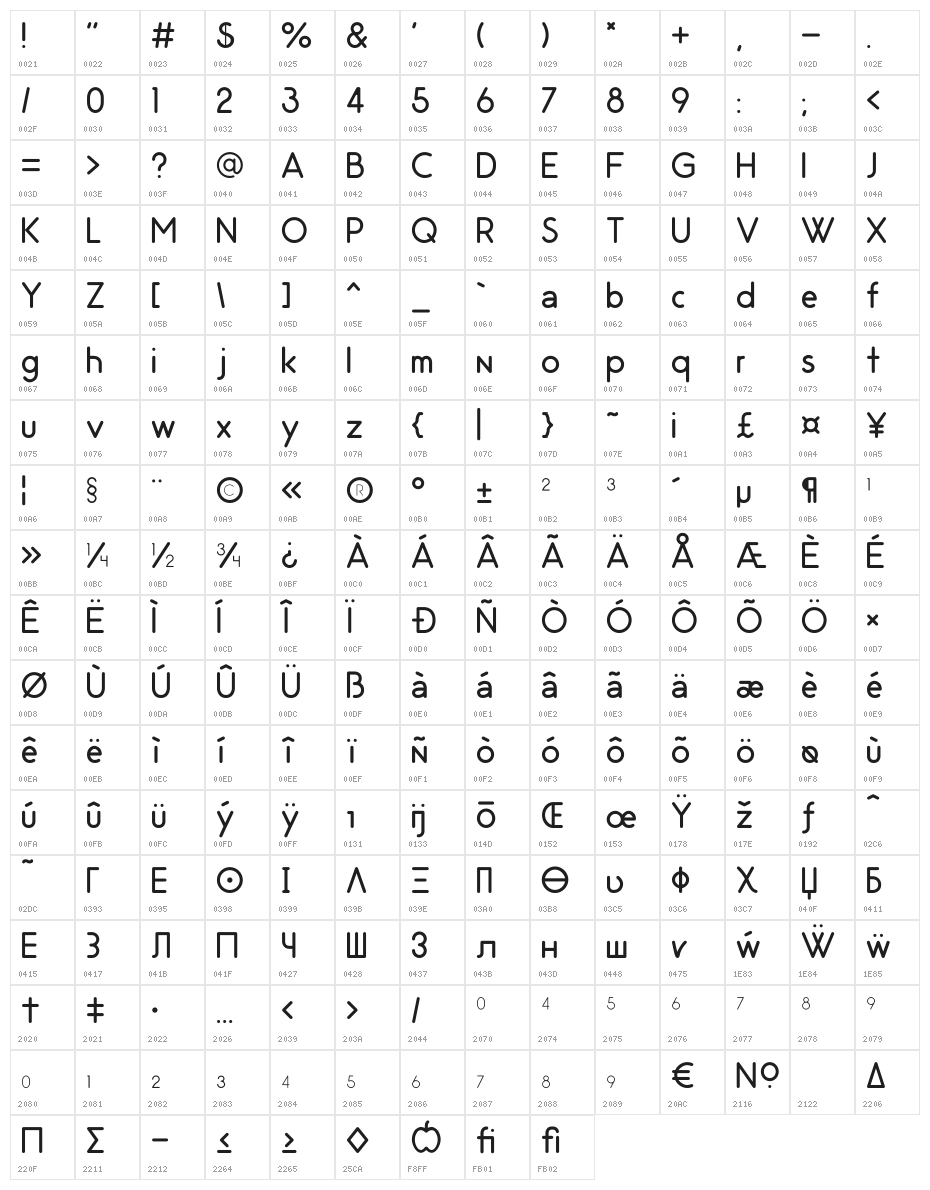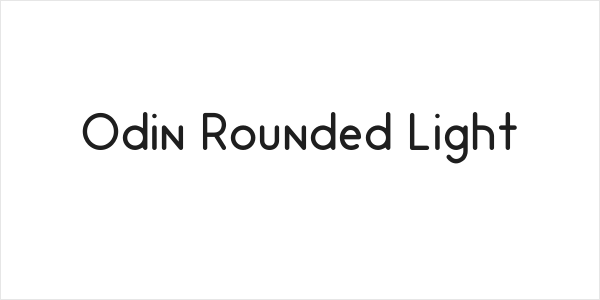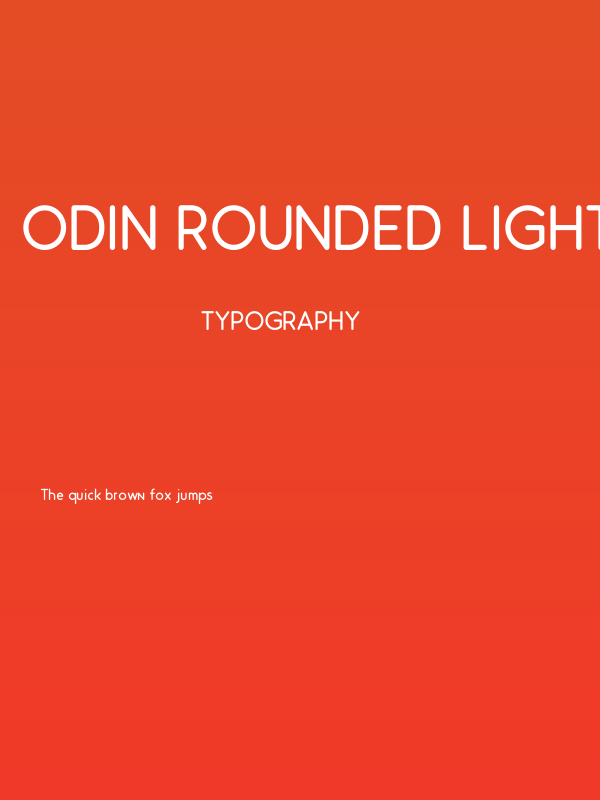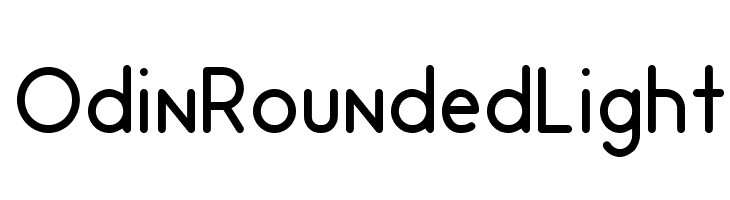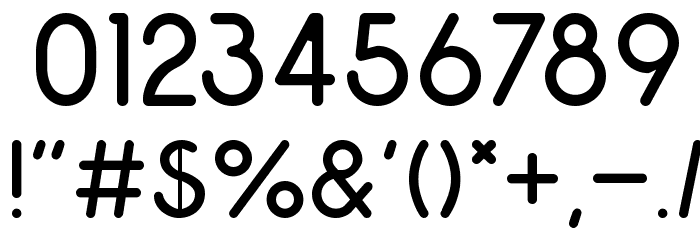
Odin Rounded Light Font
Odin Rounded Light Description
This font features a clean, modern design with rounded edges that give it a friendly and approachable appearance. The characters are evenly spaced, contributing to its readability. The font maintains a consistent stroke width throughout, which adds to its simplicity and elegance. Its geometric shapes and smooth curves make it versatile for various design applications. The uppercase and lowercase letters are well-proportioned, and the numerals are clear and distinct. Special characters are included, enhancing its utility for diverse projects.
| Proposed Projects | Ideal for branding, web design, user interfaces, and print materials where a modern and friendly look is desired. |